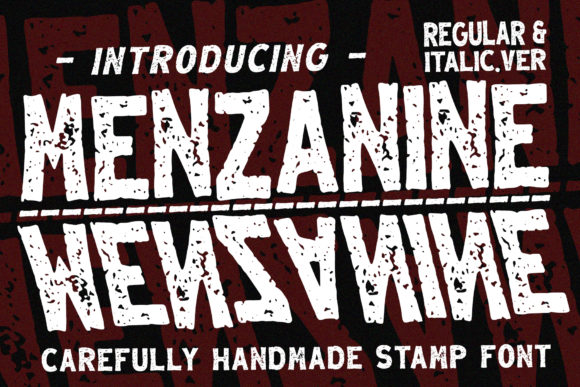
Menzanine Font
Step into the world of Menzanine, a display font family that captures the charm of vintage stamps, offering a captivating blend of nostalgia and elegance. Its stamp-like texture adds an authentic touch to your designs, conjuring images of letters carried across time, bearing messages of love, adventure, and dreams.
Menzanine isn't just a font; it's a gateway to a bygone era, a time when letters were more than mere words on a page. With each character you type, you'll feel the weight of history, the echoes of stories untold. Whether you're crafting logos, posters, packaging, or social media graphics, Menzanine will elevate your designs with its unique, eye-catching style.
This font family is not just visually stunning; it's incredibly versatile, too. Whether you're working on branding, marketing materials, or personal projects, Menzanine effortlessly adapts to your creative vision. Its natural, organic feel brings a touch of authenticity and warmth to any design, creating a sense of connection and engagement with your audience.
With Menzanine, you'll never have to worry about your designs looking ordinary or uninspired. Its stamp-like texture adds a layer of intrigue and depth, sparking curiosity and inviting people to explore your content. Say goodbye to bland, forgettable designs and embrace the captivating charm of Menzanine.